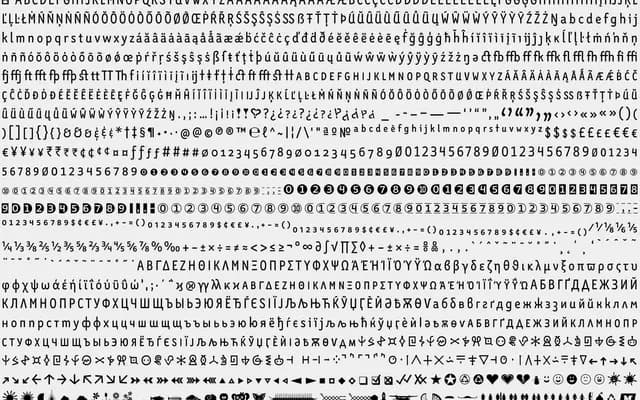
Gemma
Mota Italic · Rob Keller · 2012
A five-weight, three-width geometric sans by Rob Keller with unusually broad language support, 'rotalic' alternatives to italic, and an extensive OpenType feature set including weight-responsive dingbats.
Released in 2012, the family spans 45 fonts across five weights and three widths, with the x-height shifting vertically as the width changes horizontally. Instead of conventional cursive italics, Gemma offers two sets of 'rotalic' styles for emphasis, and every font includes the Futurama Alienese script alongside Latin, Greek and Cyrillic. The OpenType implementation is notably deep, covering small caps, 16 figure styles, contextual alternates, German-aware ligature handling and 18 stylistic sets.
Gemma is a geometric-leaning sans-serif with playful proportions and multiple widths, positioned as a versatile display and text family rather than a strict neutral grotesque.